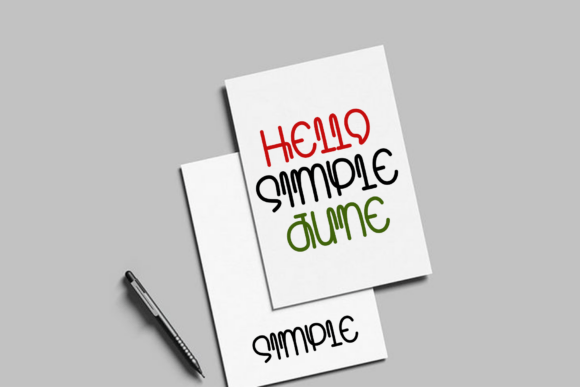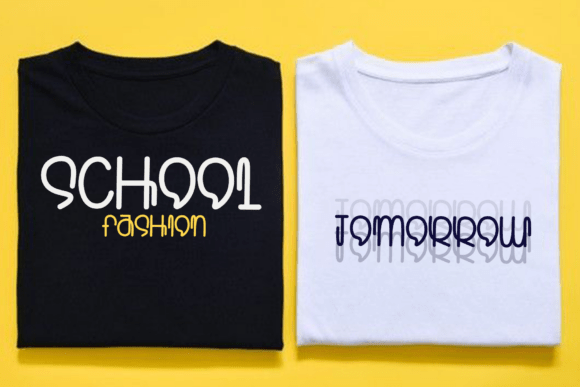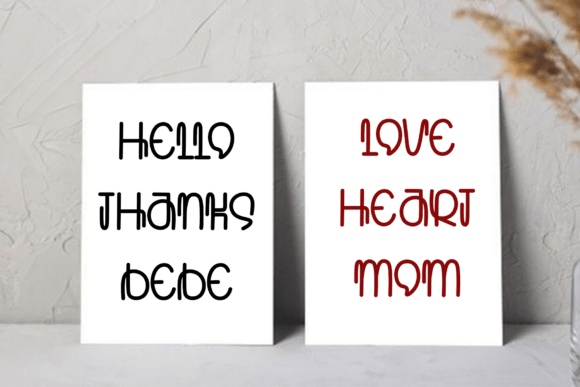
Introduction to Normal Daily1 Font
As a designer, you’ve probably found yourself staring at a blank canvas, waiting for inspiration to strike. But what if I told you that the key to unlocking that creative spark lies in the perfect font? For me, it was the Normal Daily1 Font that finally broke the silence, bringing a playful touch to my designs and breathing new life into my projects.
With its modern rounded display typeface and quirky, handwritten twist, the Normal Daily1 Font is more than just a design resource – it’s a game-changer. Its unique character shapes and smooth curves create a sense of friendliness and casual rhythm, making it perfect for creative projects that call for a balance between fun and functionality. And the best part? This high-quality font is available for free download, giving designers like you the freedom to experiment and push the boundaries of their creativity.
Key Features of Normal Daily1 Font
- High-quality font design suitable for various creative projects, including digital art, graphic design, and publishing.
- Includes multiple font styles, including regular and bold, to cater to diverse design needs.
- Perfect for designers looking for a clean and modern font to elevate their creative project.
Honest Review: Normal Daily1 Font
I recently came across the Normal Daily1 Font while searching for a high-quality font for my next creative project. I was impressed by its clean and modern design, making it perfect for a wide range of applications.
- ✨ Unique Design: Normal Daily1 Font offers a unique blend of style and functionality, setting it apart from other fonts in its category.
While the Normal Daily1 Font excels in many areas, I did encounter some limitations. For instance, the font may not be ideal for complex or large-scale designs due to its limited character set. Additionally, the font’s styling may not be as bold or dramatic as some designers might prefer.
- ⚠️ Limited Character Set: Normal Daily1 Font may not include the range of characters required for certain design projects.
- ⚠️ Styling Limitations: The font’s styling may not be bold or dramatic enough for some designers’ preferences.
Overall, I’m impressed with the Normal Daily1 Font, and I would definitely consider using it for my future creative projects. Its unique design, free download, and transparent background make it a valuable design resource.
Tips for Getting the Most Out of Normal Daily1 Font
To get the most out of Normal Daily1 Font, experiment with different font sizes, colors, and combinations to create a unique look for your design project. You can also use it in conjunction with other design elements, such as graphics and images, to create a cohesive and visually appealing design.
The Normal Daily1 Font is suitable for a variety of creative projects, including graphic design, digital art, and publishing. It’s also a great design resource for creating brochures, flyers, and other marketing materials.